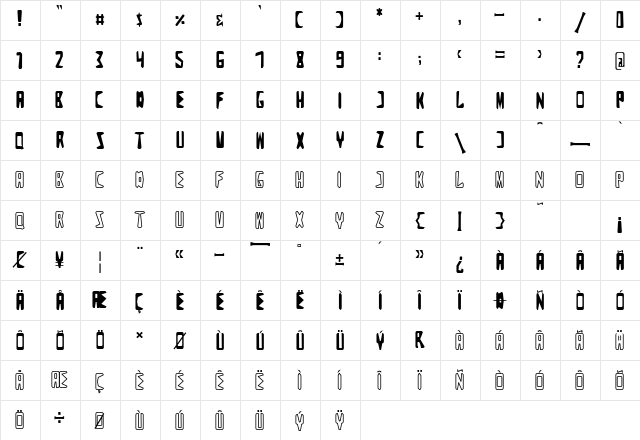
Zigzag Regular
| Designer | Rusdin Hendarsono |
Design Context for Zigzag Typeface
Zigzag takes a measured approach to typography — its balanced proportions and neutral character make it a reliable workhorse for both digital and print work.